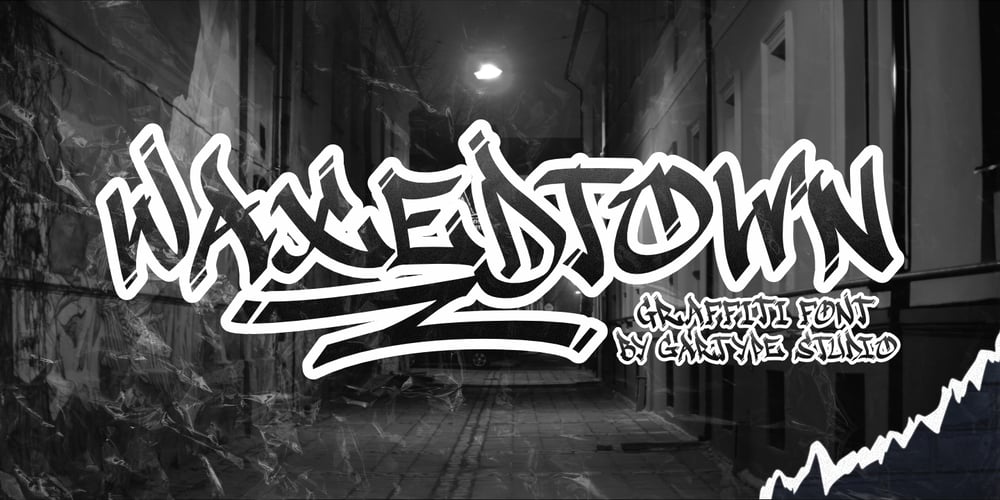
Waxedtown GT Font Family was designed by Gumilang Anggara Ruslan and published by Gartype Studio. Waxedtown GT contains 2 styles and family package options. Street Arts give us inspiration to make a uniquely typeface with a touch of street artistic typeface with graffiti vibes. Waxedtown is a graffiti inspired typeface from us that also comes with multilingual features and extra graffiti swashes to make graffiti vibes.This font look so great when you using it for projects like text headlines, product packaging, poster, music purpose, game logo title, brands, and mascot logo designs.